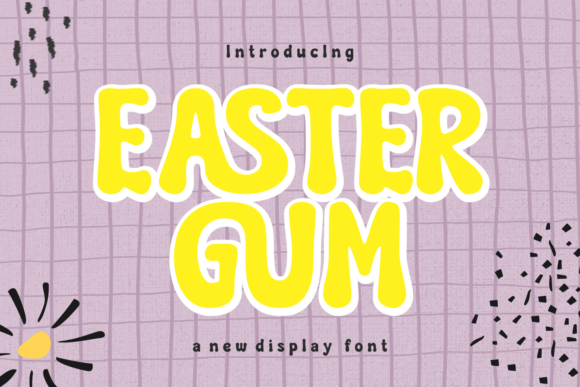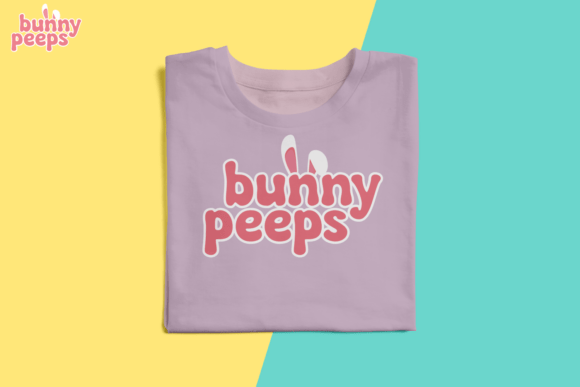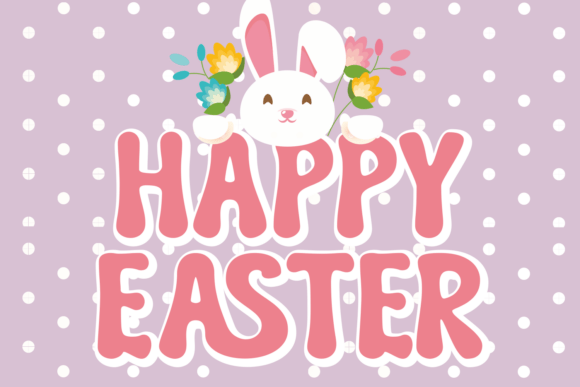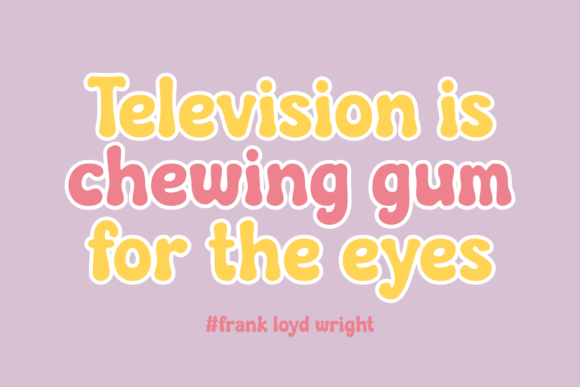
Easter Gum Font
About the Easter Gum Font
Explore the possibilities with Easter Gum Font, a font that offers both beauty and functionality. Easter Gum is a playful and squishy display font that brings a cheerful vibe to any design. Inspired by the fun of bubble gum and the bright joy of spring, its hand-drawn look and rounded letterforms make it a perfect choice for kids’ products, Easter events, branding, social media graphics, and craft projects.
Easter Gum excels in headlines, short taglines, and playful branding applications where its cheerful energy is an asset. It’s ideal for packaging, posters, and social media graphics requiring a lighthearted, approachable feel. However, its informal nature makes it unsuitable for body text or lengthy content. Avoid using it in user interfaces or situations demanding high readability.
For optimal pairings, consider pairing Easter Gum with a clean sans-serif like Open Sans for a balanced contrast, or a more geometric sans-serif like Futura for a modern touch. A classic serif like Garamond could provide sophisticated grounding if a touch of elegance is needed.
The font’s core personality is undeniably playful and friendly, making it a great choice for brands targeting children, confectionery, or spring-themed products. Its slightly imperfect, hand-drawn feel adds to its approachable charm.